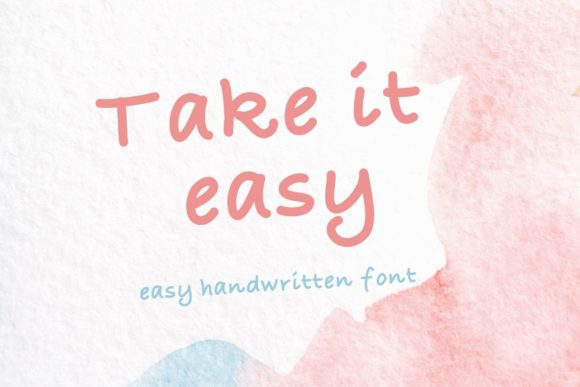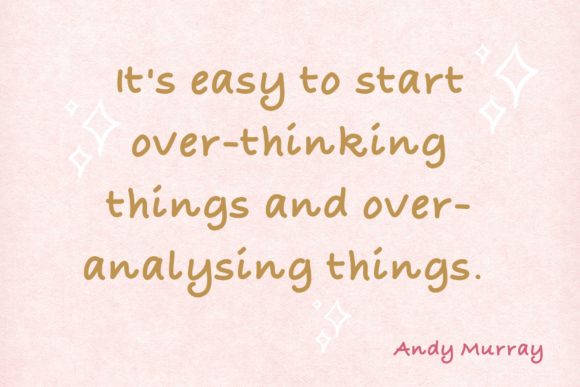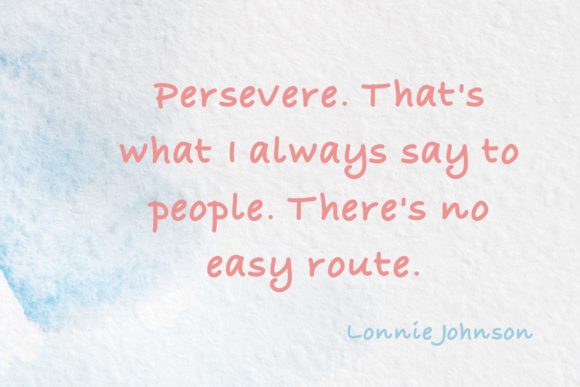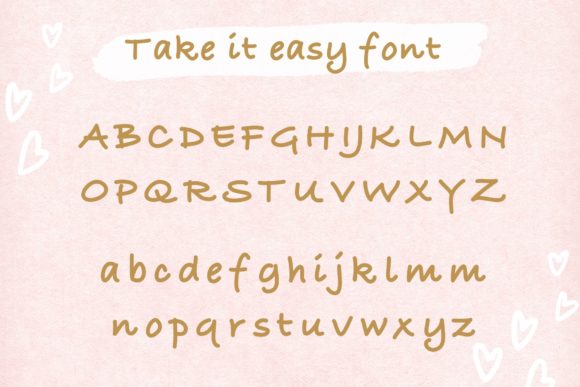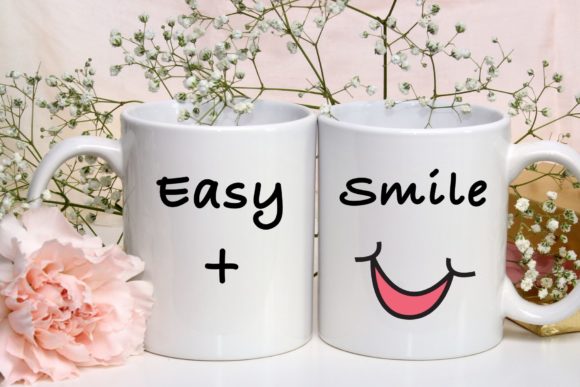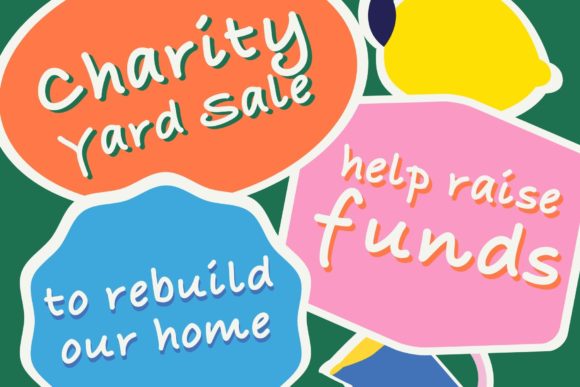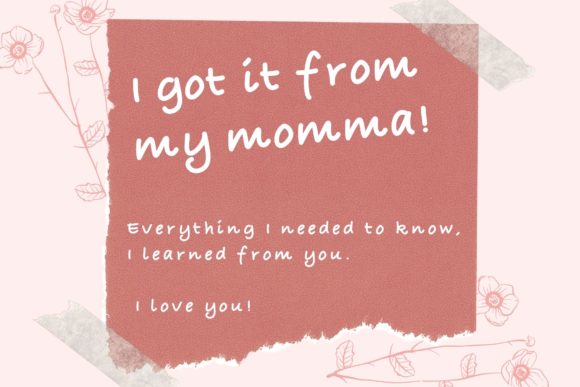
Take It Easy Font
About Take It Easy Font
Take It Easy is a simple and sweet handwritten font. It looks incredibly endearing and authentic and it will elevate a wide range of design projects to the highest level, be it branding, headings, wedding designs, invitations, signatures, logos, labels, and much more!